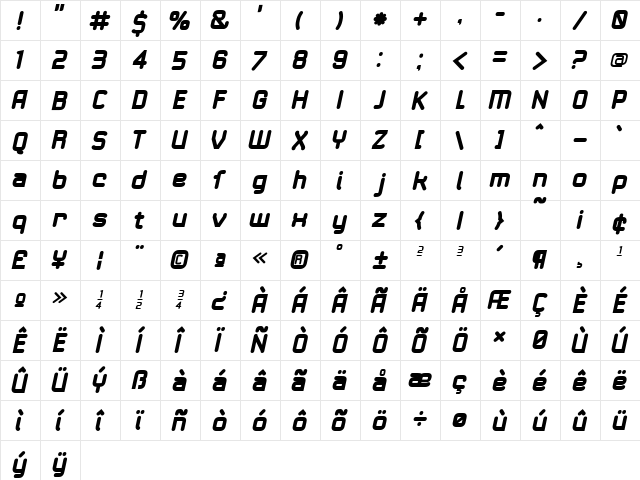
21st Regular
Design Context for 21st Typeface
21st is a composed and adaptable typeface that performs quietly and consistently across a wide range of design contexts.